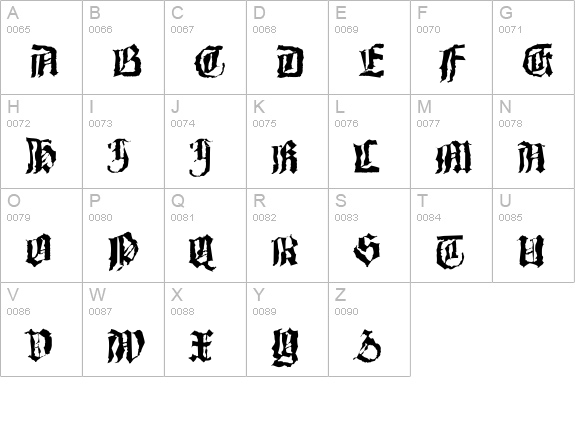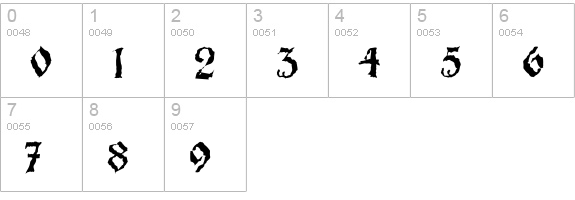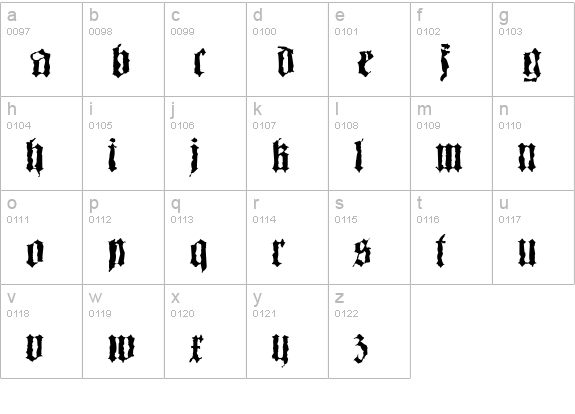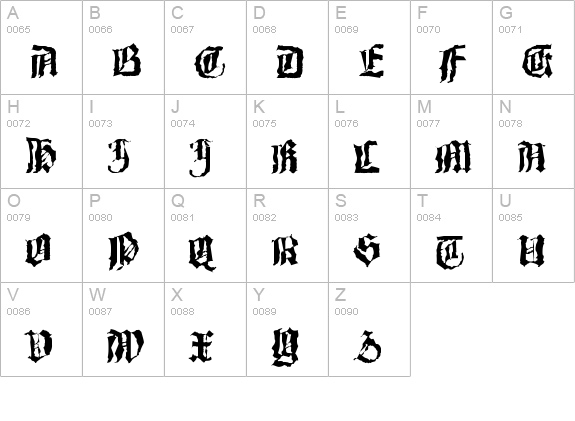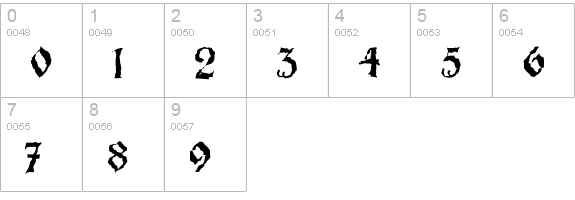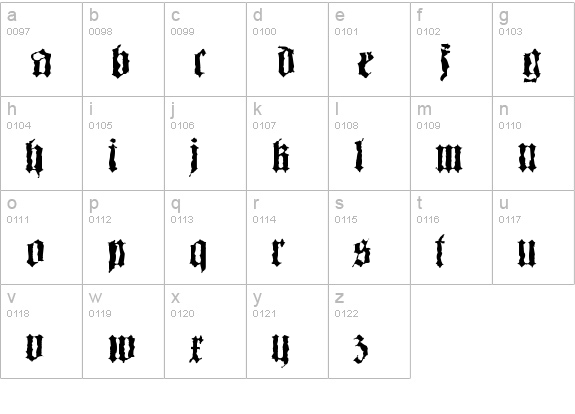
Barlos-Random font is a whimsical and playful typeface that adds a touch of creativity to any design project. With its unique and irregular letter shapes, Barlos-Random font is perfect for making your text stand out and grab attention. This font is versatile and can be used for a variety of projects, from posters to social media graphics to branding materials. The best part? Barlos-Random font is completely free to download at FontsMarket.com. So go ahead and elevate your designs with this fun and eye-catching font today!